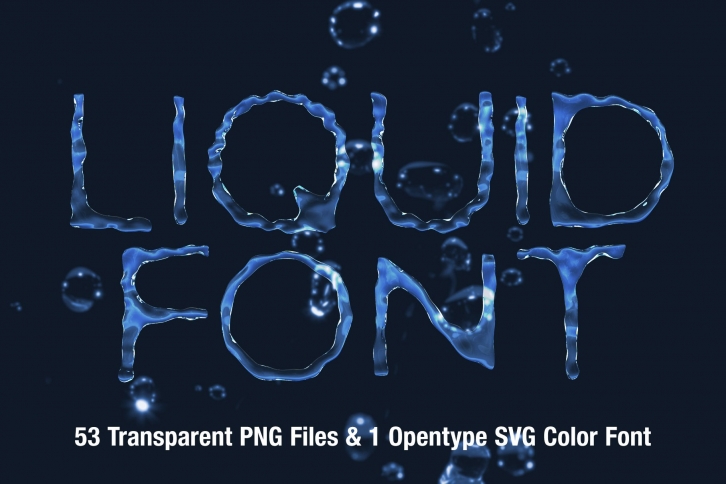
MS Liquid Font - Opentype SVG Color Font and PNG Files
Each letter is modelled and rendered in a 3D Application, also converted into an Opentype SVG (Color Font)